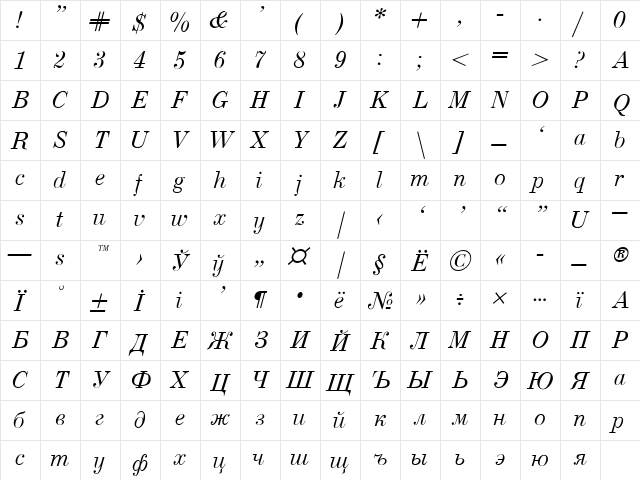
Usual New Italic Font Preview
Usual New Italic
Design Context for Usual New Typeface
Usual New is a composed and adaptable typeface that performs quietly and consistently across a wide range of design contexts. The dynamic lean of this cut emphasises speed and emphasis in any layout.